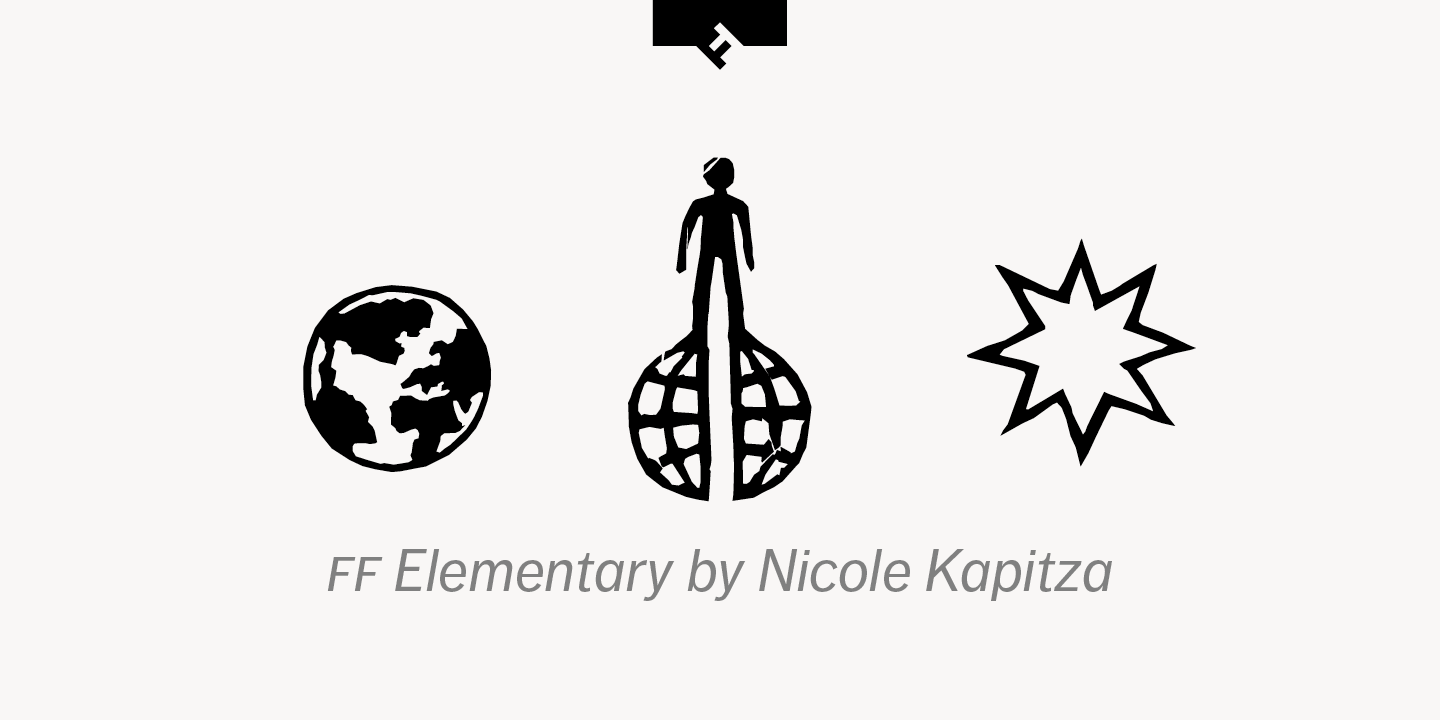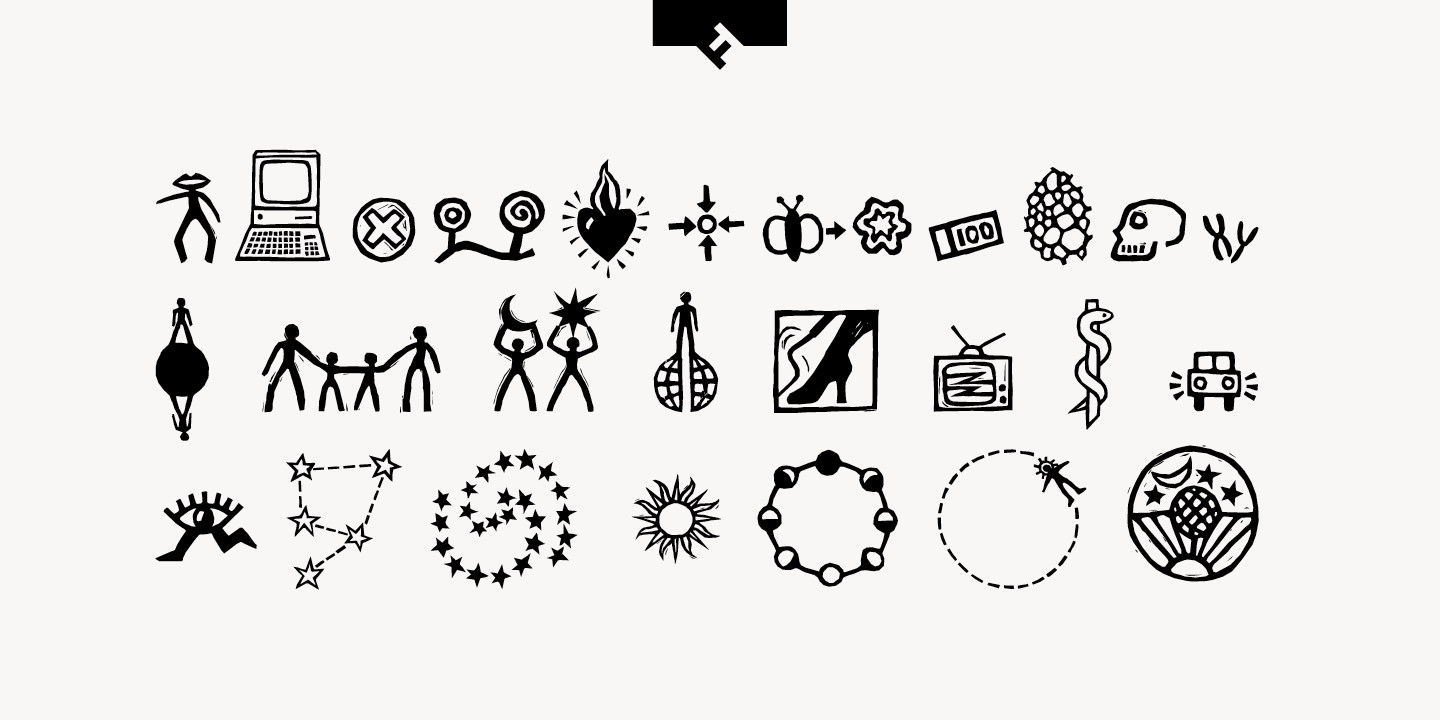
Nicole Kapitza, born in Oberndorf, a village in southwest Germany, set up the studio kapitza with her sister Petra in 2003, in the east end of London. Together they offer picture and pattern fonts and have become highly regarded in the UK and abroad.
Nicole originally studied to become an art teacher, but after dissatisfaction with the over-broad curriculum dropped out and worked on a new portfolio for six months. She was accepted at the State Academy of Fine Arts in Stuttgart to study illustration. She cites her teacher Heinz Edelmann [of Yellow Submarine fame] as a strong influence in awakening an interest in minimalism.
While visiting her sister Petra in London, she arranged to study graphic design for a year as an exchange student at Camberwell College of the Arts. After a time studying footwear design, Petra joined her there too.
In 1996, both Petra and Nicole found work in Berlin at a brand new interactive design company called Pixelpark.
In 2003 the sisters opened their London studio together, focussing on book and exhibition design, but also venturing into large-scale artworks. The silhouette fonts, of people and nature, is an offshoot of such work. The endless possibilities of their suite of minimalist pattern fonts, Geometric, are showcased in the book Geometric, which has brought them wider recognition.